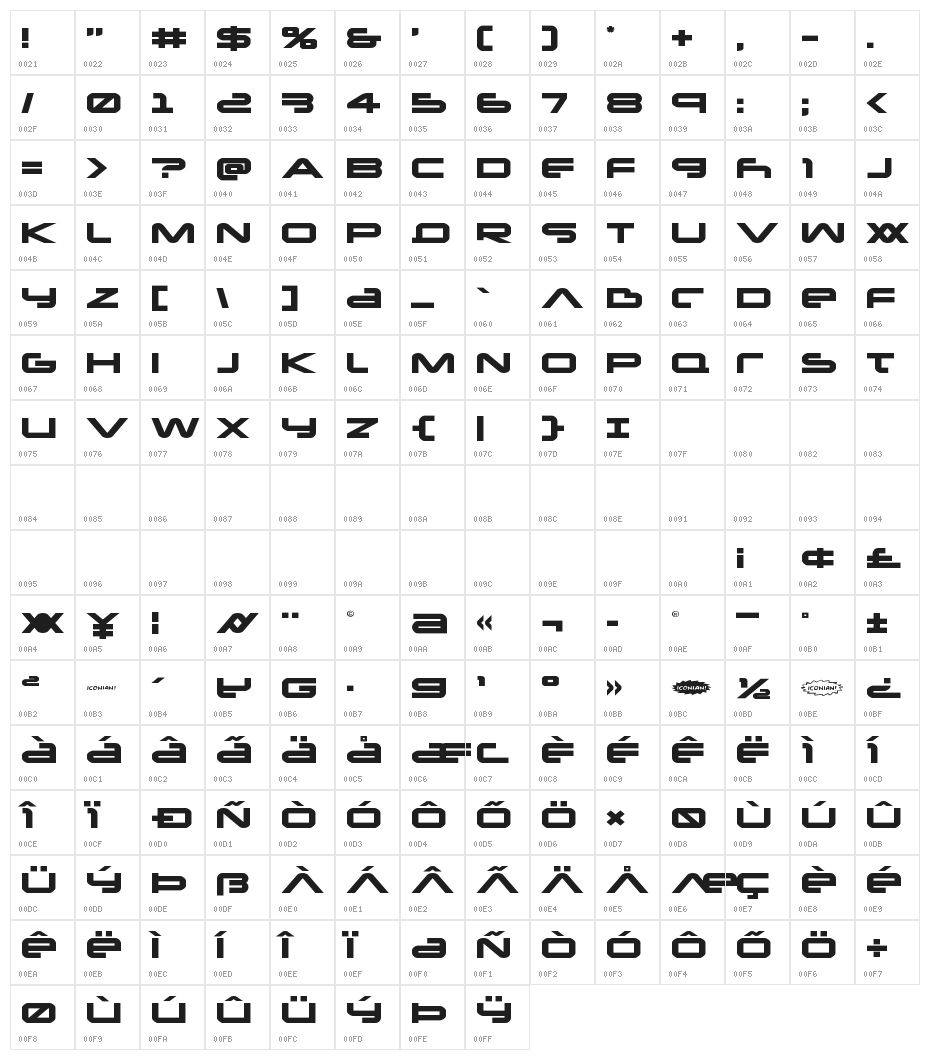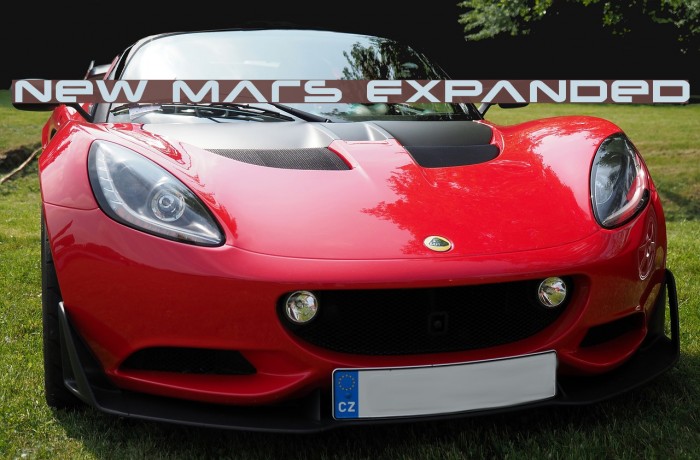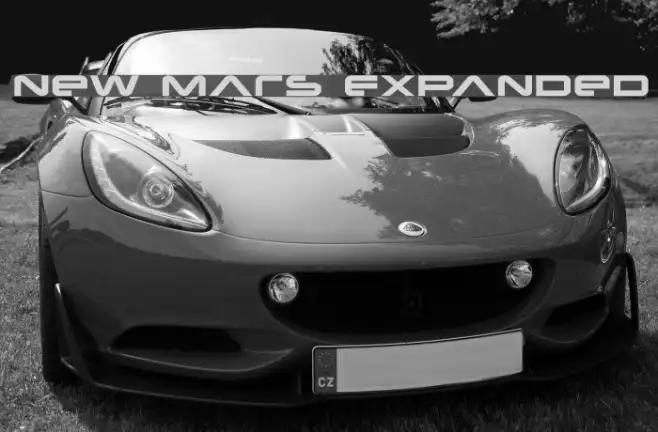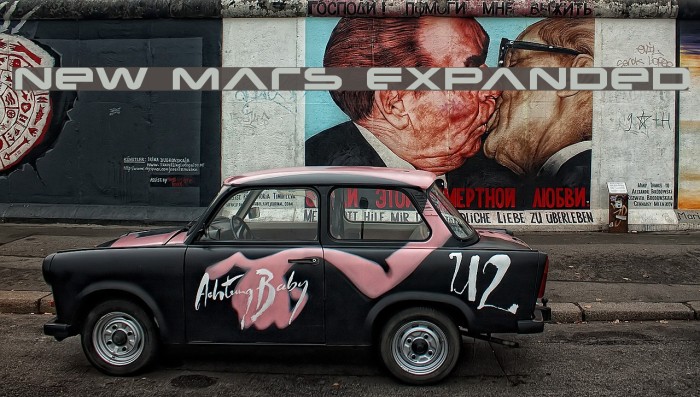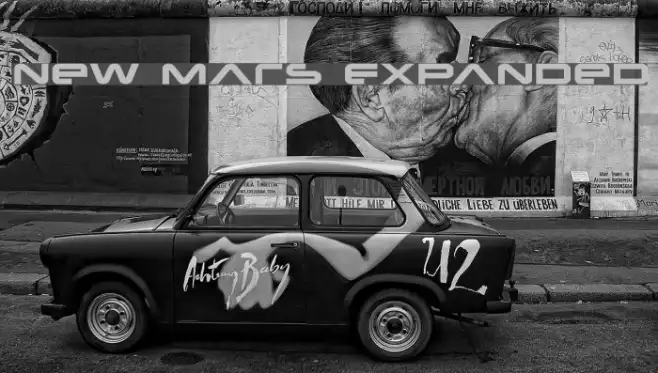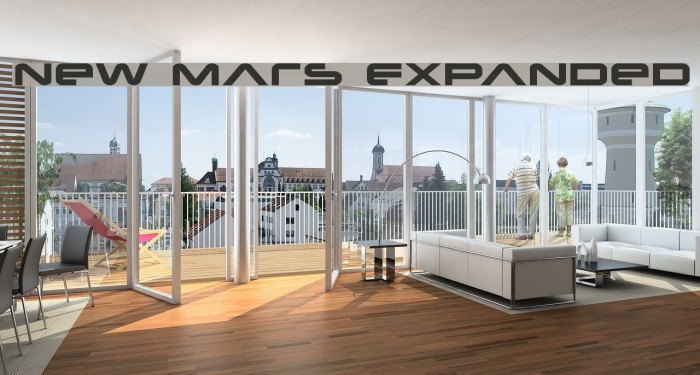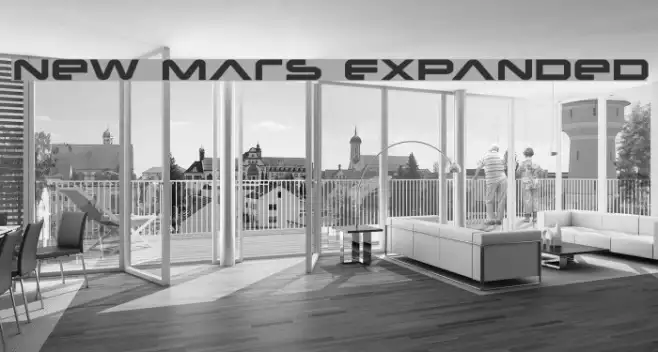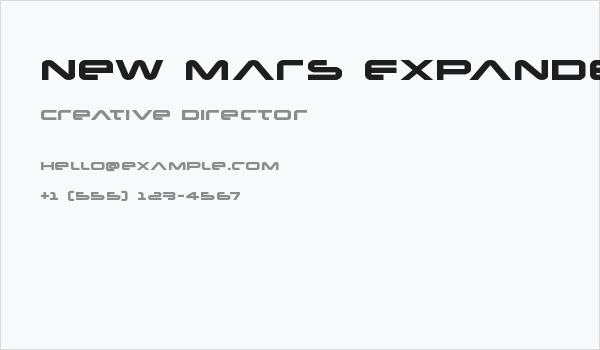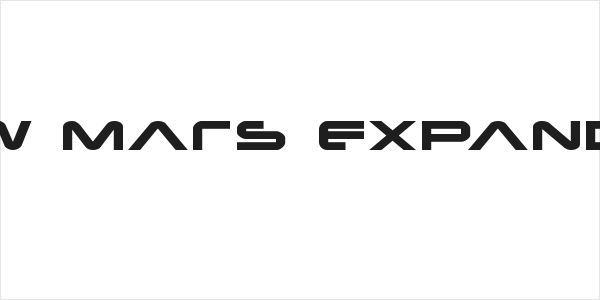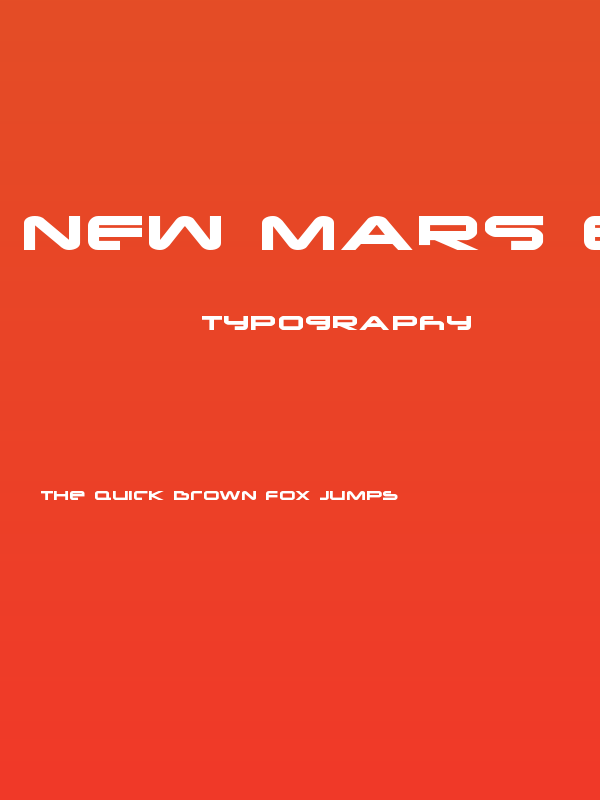
New Mars Expanded Font
New Mars Expanded Description
This font features a futuristic and geometric design, characterized by its bold and angular letterforms. The uppercase and lowercase letters maintain a consistent style, with sharp edges and a uniform thickness that gives it a modern and technological appearance. The numbers and special characters follow the same design principles, ensuring a cohesive look across all glyphs. The font's expanded width and distinct character shapes make it highly legible and suitable for attention-grabbing displays.